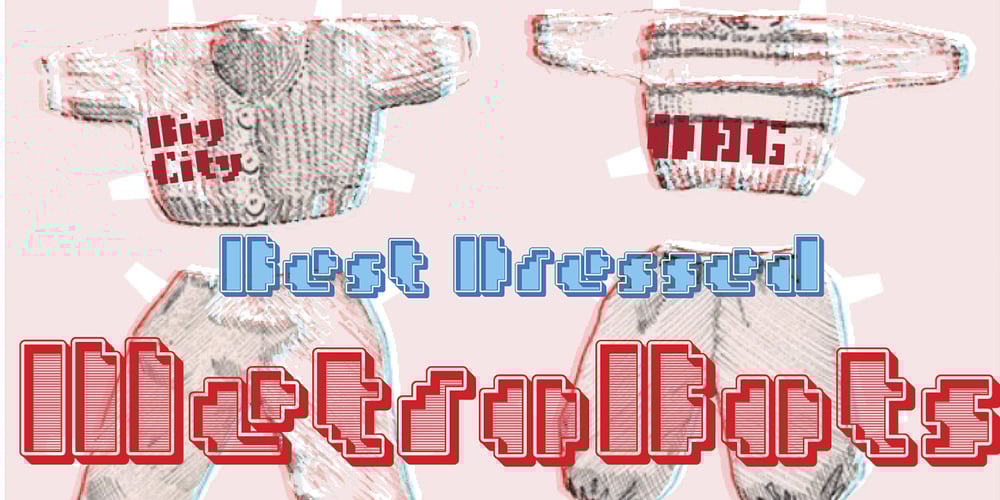
MetroBots Font Family was designed by Russell A. McGorman and published by Our House Graphics. MetroBots contains 5 styles and family package options. MetroBots is a fun loving, non-traditional but very functional family of 6 fonts made of big city skies, the long tropical morning shadows of ancient ziggurats and entire pueblo villages, nestled into the steep cliff-sides of sage-topped mesas in south western deserts.This is a good solid, but kind of whacky looking display type family borrowing from the heft of good old-fashioned children�s wooden building blocks and the look and feel of both modern and ancient pueblo architecture. With a bit of the not-so-subtle expressiveness of a comical robot on a WD-40 high on the side.